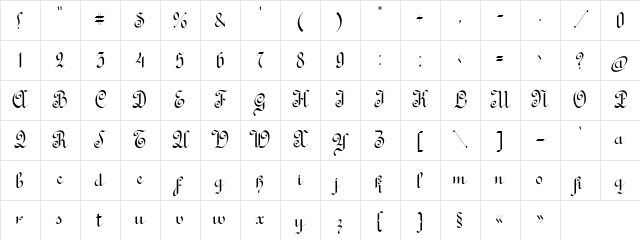
Complete Rondo Ancient Two Regular glyph index. Displaying only characters natively supported by Rondo Ancient Two Regular font.
Rondo Ancient Two is a composed and adaptable typeface that performs quietly and consistently across a wide range of design contexts.
Who designed the Rondo Ancient Two Regular font?